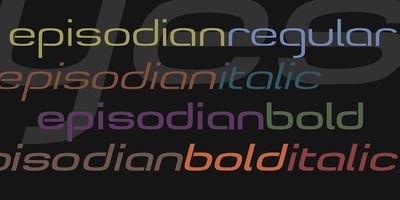
Episodian Font Family was designed by Ken Russell and published by Atlantic Fonts. Episodian contains 4 styles and family package options. Episodian is a retro-modern san-serif family with a sci-fi, techno edge and contemporary elegance of its own. Episodian now includes regular and bold with corresponding italic fonts.